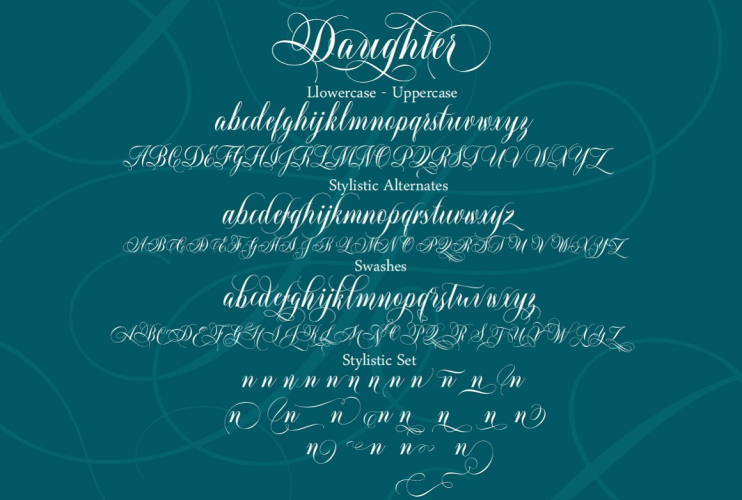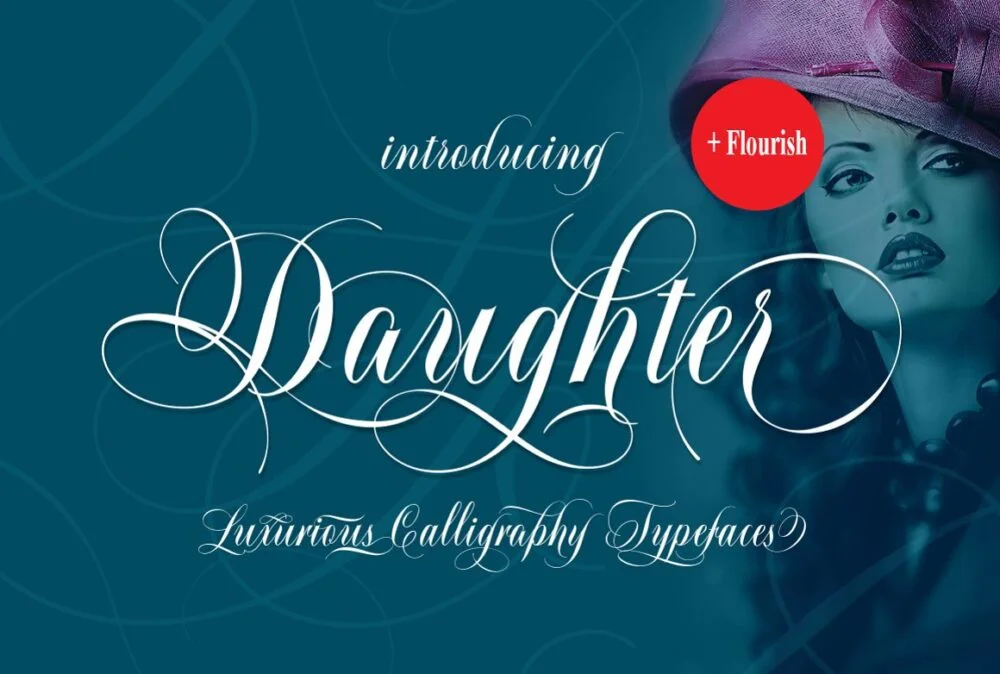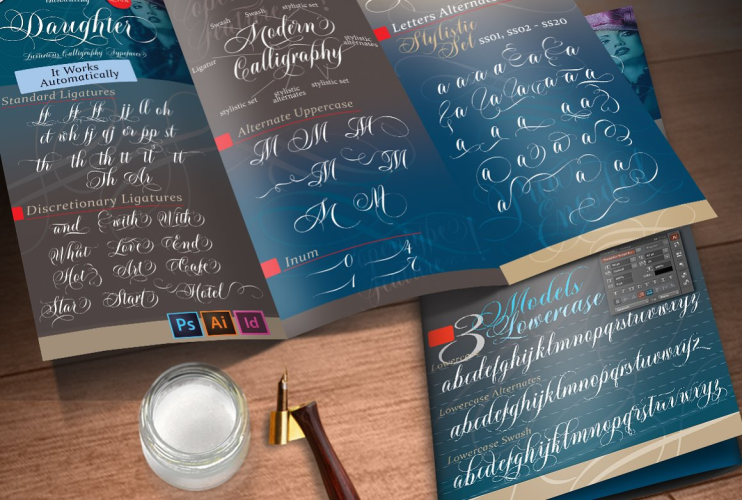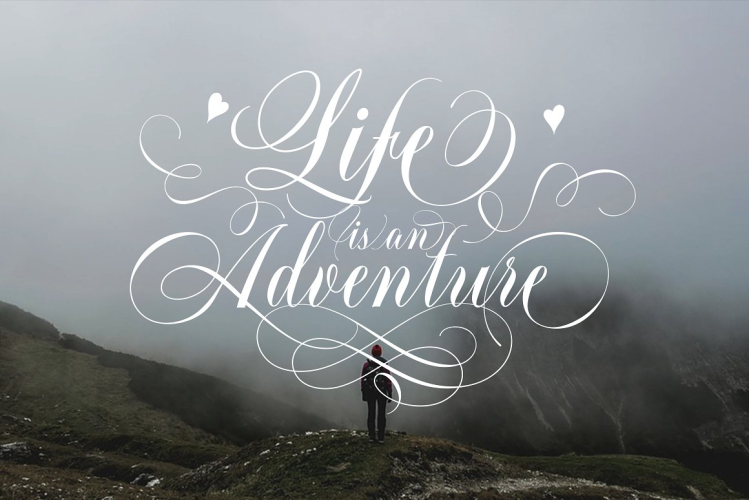
Daughter Script Font
Daughter Script Font is a calligraphy manuscript, handwritten modern and classic, so soft, perfect for your next design, such as logos, printed quotes, invitations, card…
Daughter Script Font is a calligraphy manuscript, handwritten modern and classic, so soft, perfect for your next design, such as logos, printed quotes, invitations, cards, product packaging, headers and anything else about your imagination.
Daughter Script Font allows you to create custom dynamic text. you can access by turning on; Stylistic Alternates, Swash, as well as ligatures in Photoshop, Adobe Illustrator, Adobe InDesign or through a panel of glyphs such as Adobe Illustrator, Photoshop CC, Let’s switch from the regular character into a character alternative to get the text with the layout of your dreams.
Where Daughter Script Font works best
Daughter Script Font brings a personal, handwritten warmth to invitations, menus and place cards.
Craft brands — coffee, cosmetics, bakery — use scripts like Daughter Script Font for signature-style logos and labels.
Pair Daughter Script Font with a plain sans for quotes, stories and Pinterest pins that feel handmade.
What is Daughter Script Font good for?
Daughter Script Font is a Script And Handwritten typeface tagged Branding, Calligraphy, Classic, Handwritten. It works well for headlines, logos, posters, social media graphics and branding projects that need a distinctive script and handwritten look.